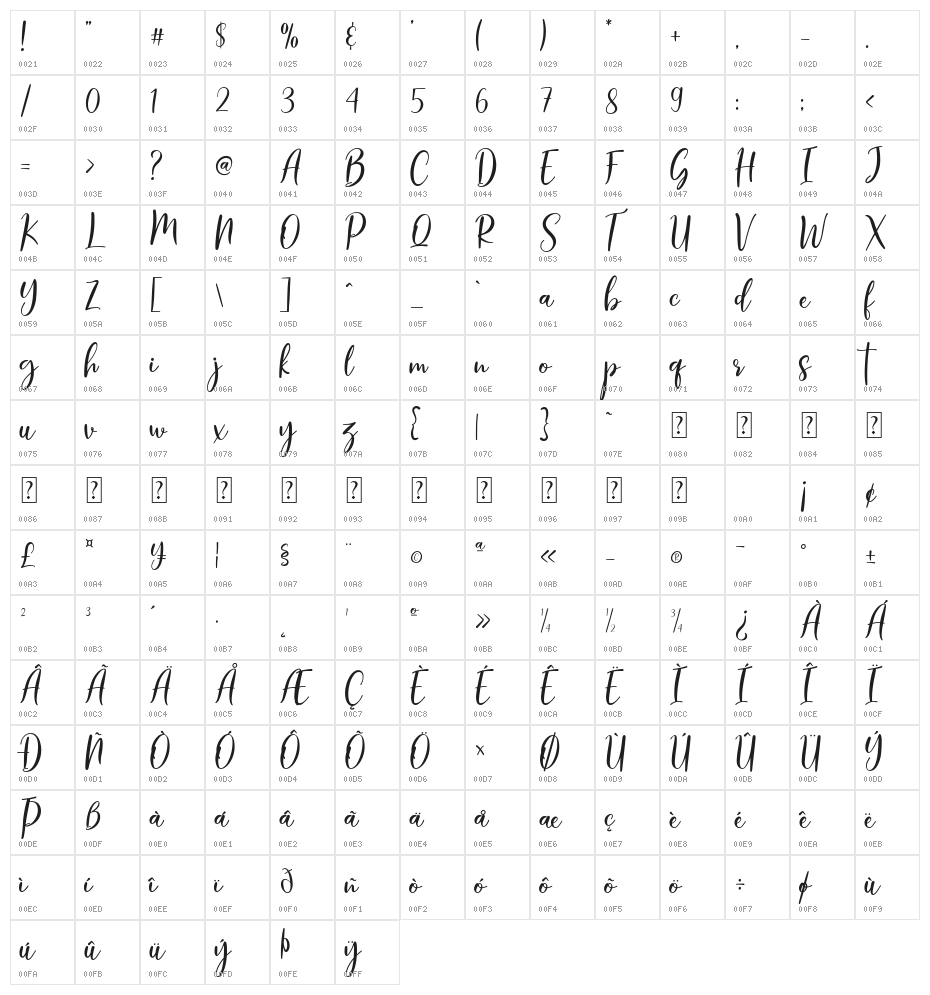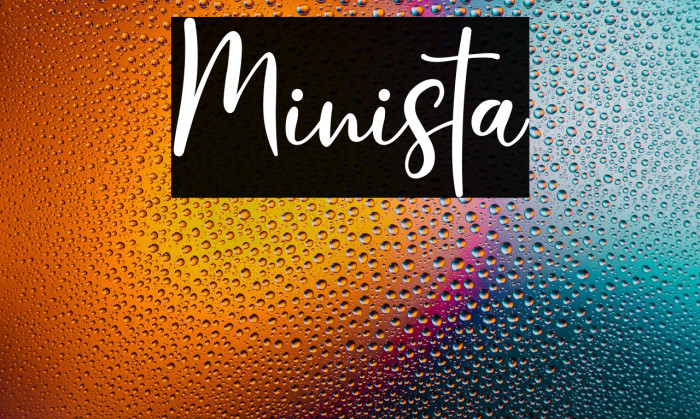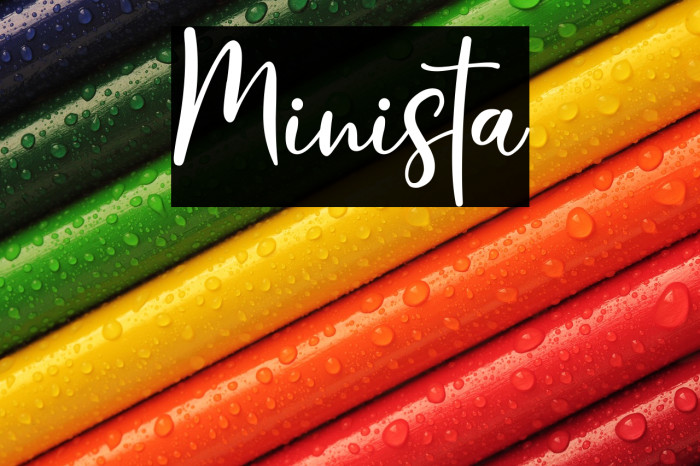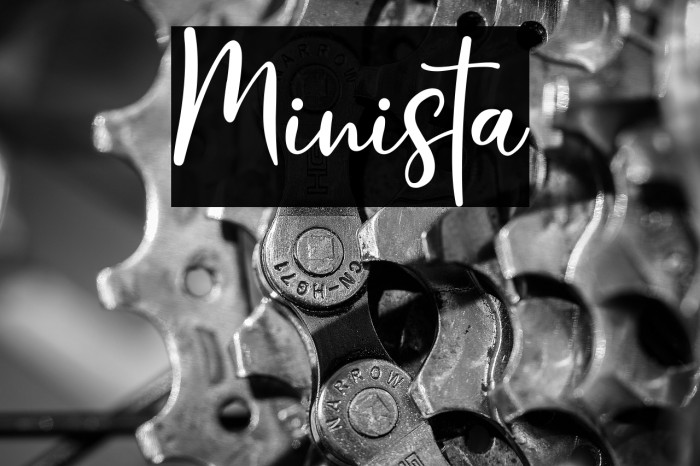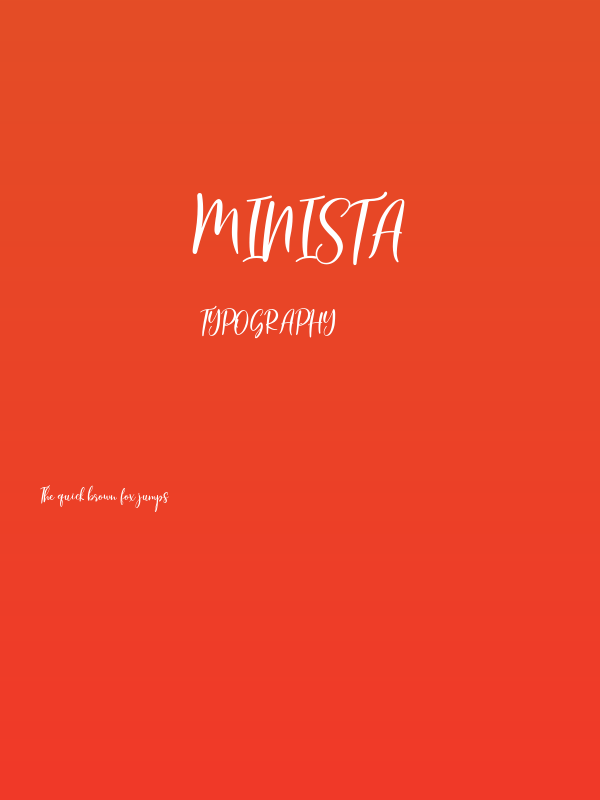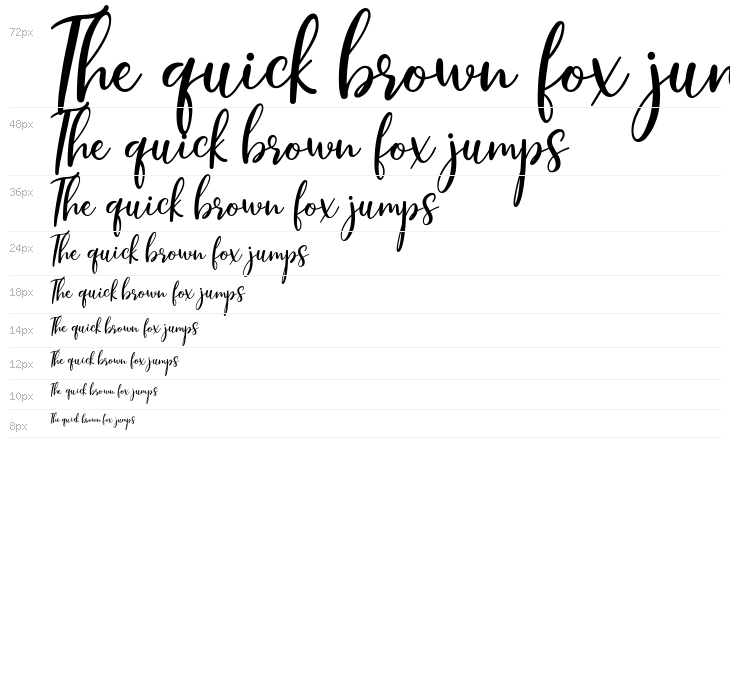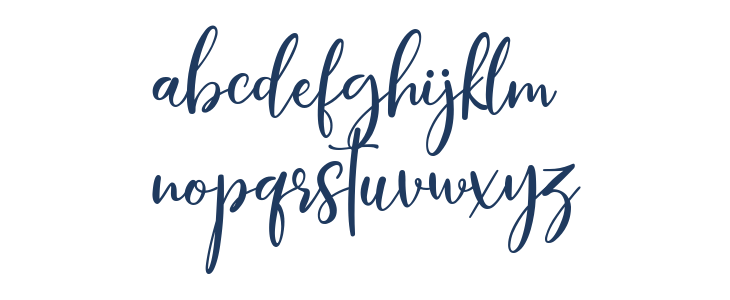
Minista Font
Minista Description
This font features a modern, handwritten style with elegant, flowing curves and a playful yet sophisticated appearance. The uppercase letters are tall and slender, with a slight slant that adds a dynamic feel. The lowercase letters are more rounded and connected, enhancing the script-like quality. The numerals are consistent with the overall style, maintaining the same fluidity and grace. Special characters are designed to complement the letters, ensuring a cohesive look across all text. The font's unique charm makes it suitable for a variety of creative projects.
| Use Case | Logos, Headlines, Invitations |
| Proposed Projects | Ideal for wedding invitations, greeting cards, branding, and social media graphics. |